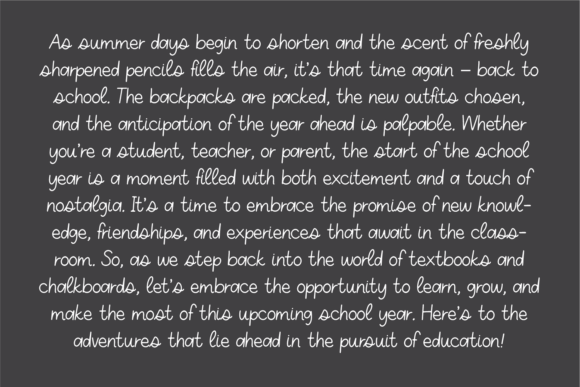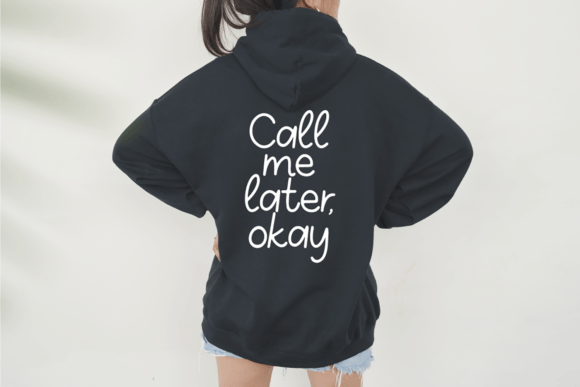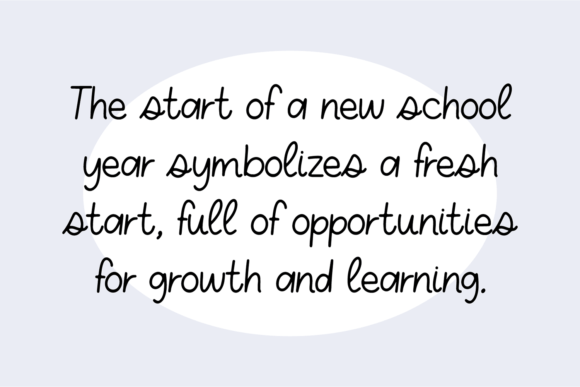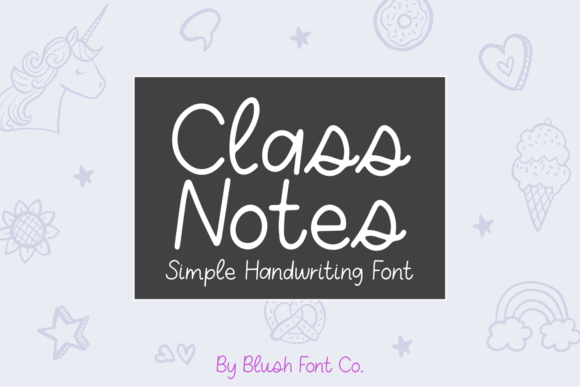
Introducing Class Notes Font: The Ultimate Tool for Back-to-School Success
As the new school year approaches, students, teachers, and designers are on the lookout for the perfect font to enhance their note-taking, teaching, and planning experience. Look no further than Class Notes Font, a simple and clear school font designed to make your school-related tasks a breeze. In this article, we’ll dive into the features and benefits of Class Notes Font, and explore how it can become your go-to font for all your educational needs.
The Importance of a Good Font for School
When it comes to note-taking, teaching, and planning, the font you use can make a significant difference in your productivity and overall learning experience. A good font should be easy to read, visually appealing, and versatile enough to be used in various settings. A well-designed font can help you stay focused, take better notes, and even enhance your creativity. That’s where Class Notes Font comes in – a font specifically designed with the needs of students, teachers, and designers in mind.
What Makes Class Notes Font Stand Out?
Class Notes Font boasts several features that make it the perfect choice for back-to-school tasks:
- Easy-to-read design: Class Notes Font has a clear and simple design that makes it easy on the eyes, reducing eye strain and fatigue.
- Simple and clean: The font’s minimalist approach ensures that your notes, plans, and teaching materials look organized and professional.
- Versatile: Class Notes Font is perfect for a wide range of school-related tasks, from note-taking and teaching to planning and crafting.
Designers and crafters can also benefit from using Class Notes Font in their work:
- Customization: Use Class Notes Font to create personalized planners, journals, and other paper crafts.
- Branding: Incorporate Class Notes Font into your brand identity to convey a sense of professionalism and approachability.
- Inspiration: The font’s clean design can serve as a great inspiration for your own design projects, helping you to create fresh and modern designs.
Using Class Notes Font for Back-to-School Tasks
Here are some ideas for using Class Notes Font for your back-to-school tasks:
- Note-taking: Use Class Notes Font to take clear and organized notes during lectures or meetings.
- Lesson planning: Create engaging and easy-to-follow lesson plans with Class Notes Font.
- Teaching materials: Use Class Notes Font to create visually appealing teaching materials, such as worksheets, handouts, and presentations.
- Planners and journals: Design personalized planners and journals with Class Notes Font for a thoughtful and functional gift.
Tips for Getting the Most Out of Class Notes Font
To maximize the benefits of Class Notes Font, consider the following tips:
- Experiment with font sizes: Find the perfect font size for your needs, whether it’s for note-taking, teaching, or designing.
- Pair with other fonts: Combine Class Notes Font with other fonts to create visually appealing and engaging designs.
- Use in digital and print materials: Use Class Notes Font in both digital and print materials to maintain consistency across your school-related tasks.
| Font Name | Class Notes Font |
| Author | blushfontco |
Class Notes Font is the perfect tool for students, teachers, designers, and crafters looking to enhance their back-to-school experience. With its easy-to-read design, simple and clean aesthetic, and versatility, Class Notes Font is sure to become your go-to font for all your school-related tasks. Try it out today and discover the benefits of a well-designed font for yourself!